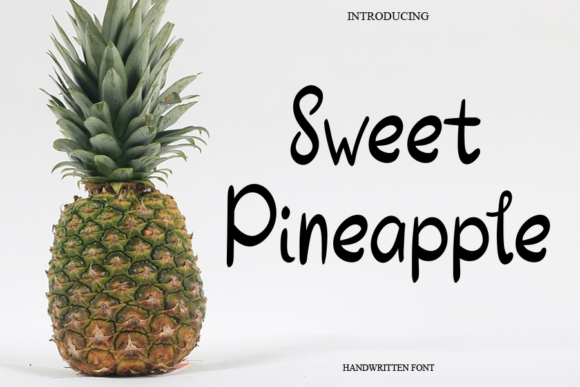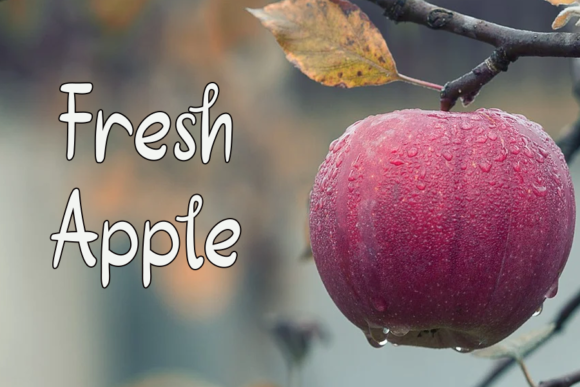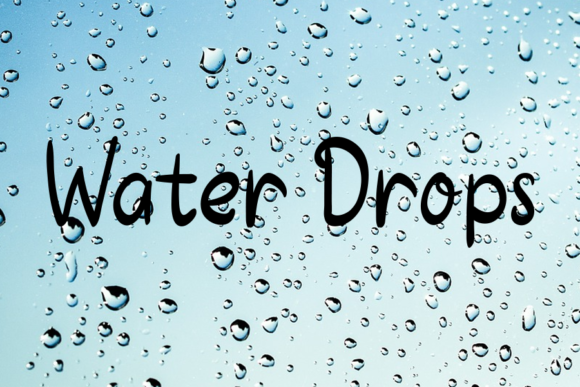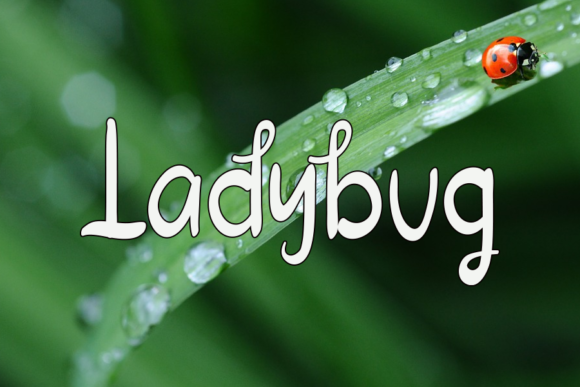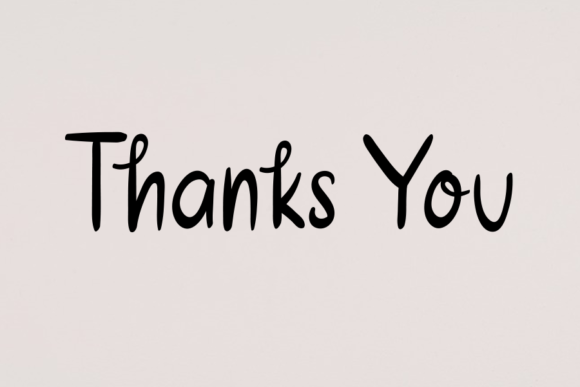
Sweet Pineapple Font
About Sweet Pineapple Font
Sweet Pineapple is a beautiful, relaxed and friendly handwritten font. This font is gorgeously flowing, and offers a lovely vibe to your creations. Get inspired by Sweet Pineapple and add to each of the designs that require a personalized touch.